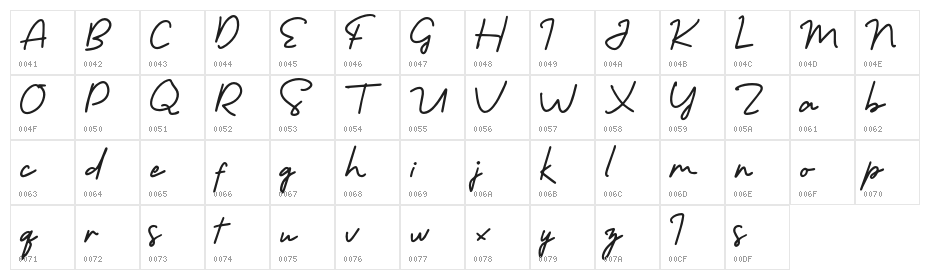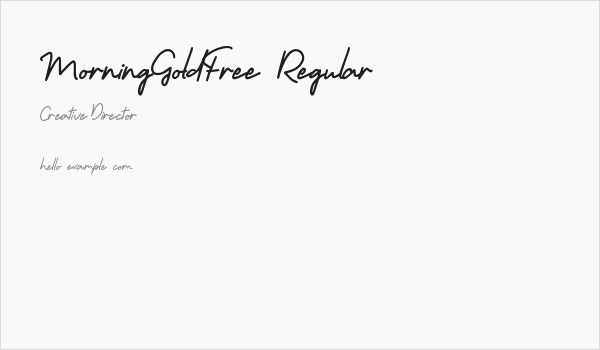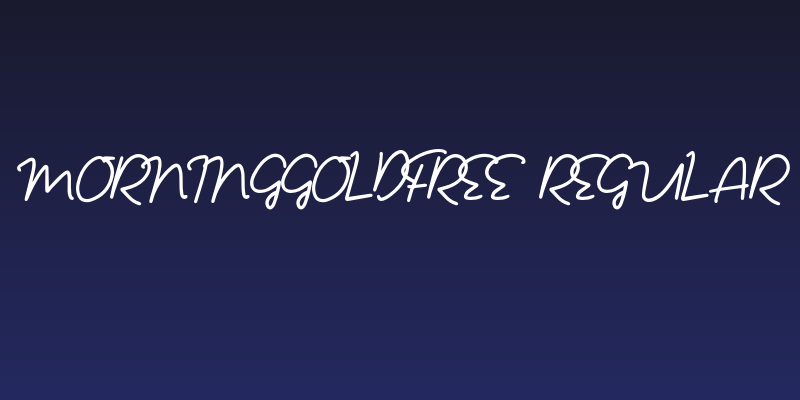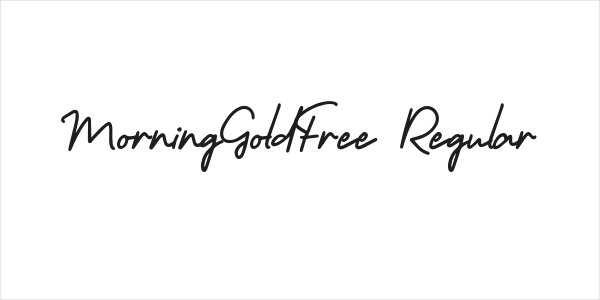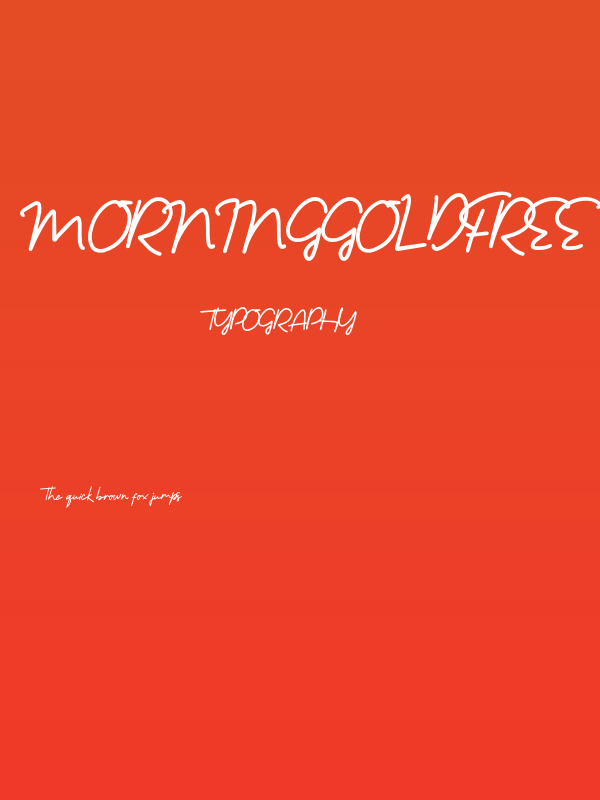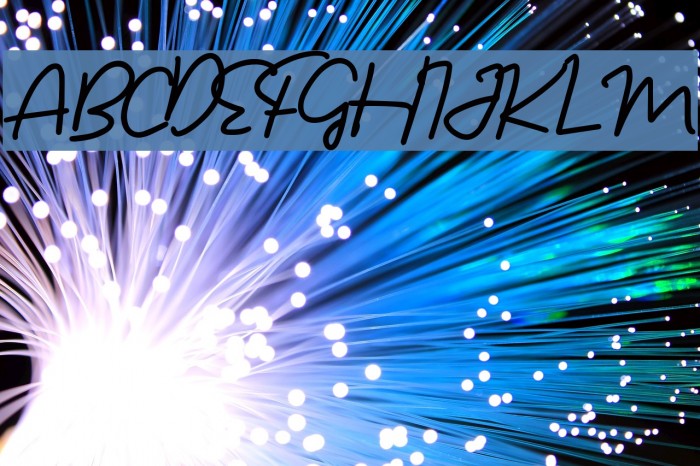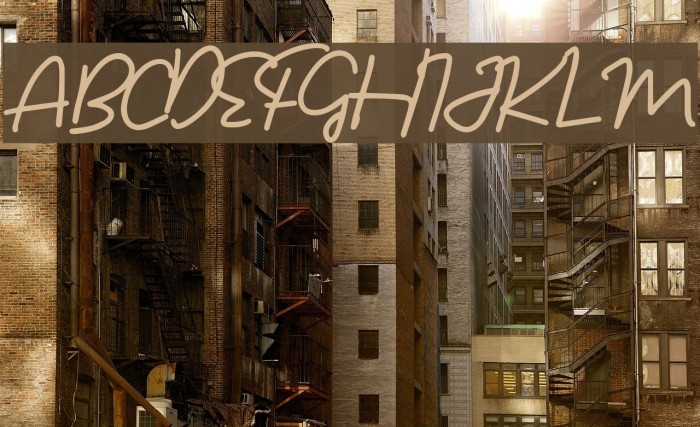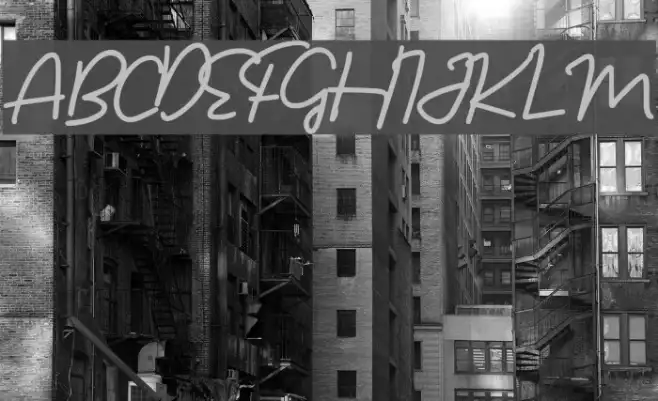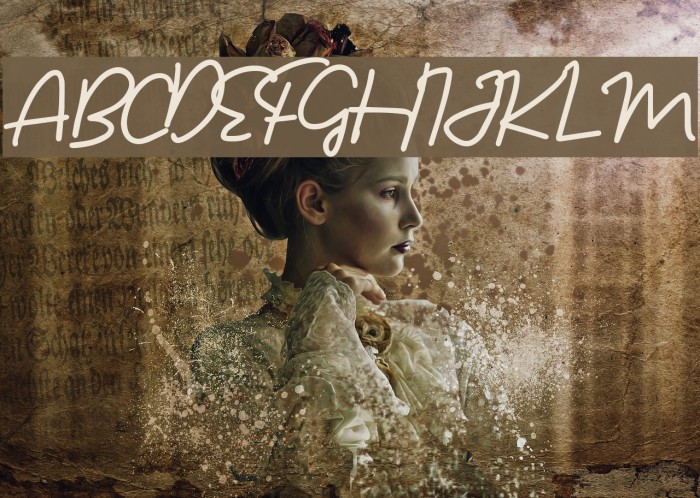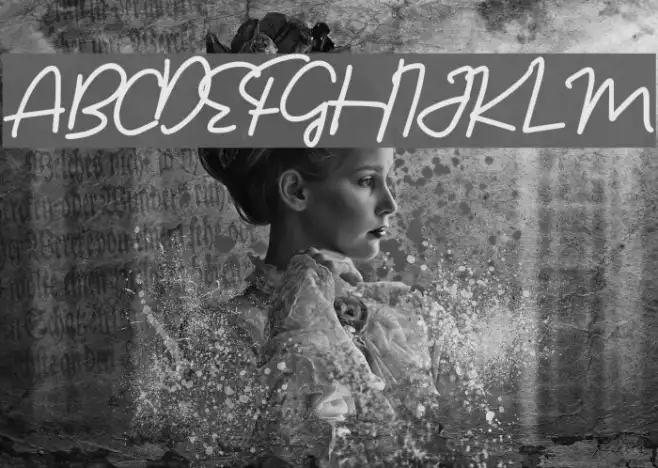
MorningGoldFree-Regular Font
MorningGoldFree-Regular Description
This font exudes a lively and dynamic handwritten style, characterized by its flowing and interconnected letterforms. The strokes are smooth and exhibit a natural rhythm, giving the text a personal and informal touch. The uppercase letters maintain a consistent height, while the lowercase letters vary in size, adding to the font's organic feel. The overall appearance is casual yet elegant, making it suitable for projects that require a personal or artistic flair. The font's playful nature is enhanced by its slightly irregular baseline, which mimics authentic handwriting.
| Overall Style | Casual, Artistic |
| Use Case | Logos, Invitations, Personal Branding |
| Proposed Projects | Ideal for greeting cards, personal branding, invitations, and artistic projects that require a personal touch. |